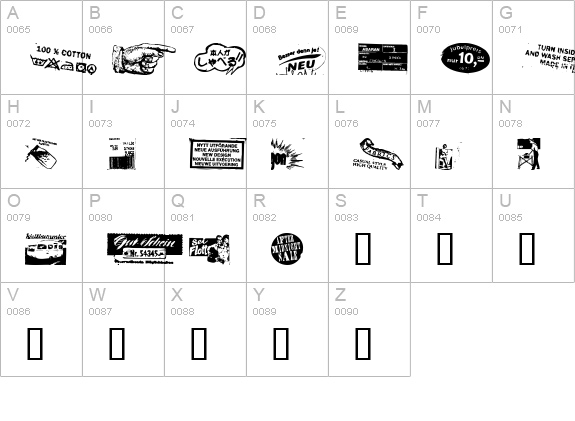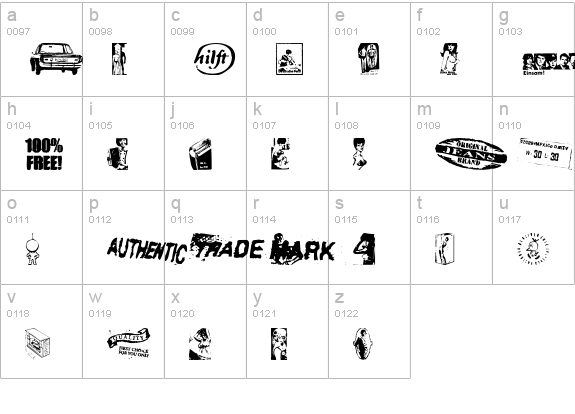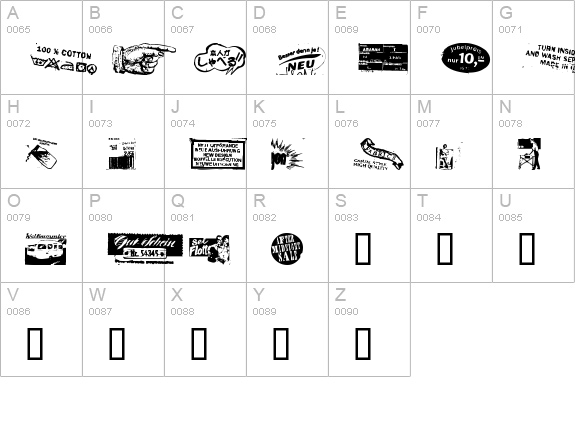
Introducing AfterMidnightSaleJunk font - a bold and edgy typeface that will add a unique touch to your design projects. This font exudes a sense of urban flair and modernity, making it perfect for posters, logos, and other creative works. With its distinct style and eye-catching appeal, AfterMidnightSaleJunk font is sure to make your designs stand out from the crowd. The best part? AfterMidnightSaleJunk font is available for free download at FontsMarket.com. Simply visit the website to get your hands on this versatile and striking font. Whether you're a graphic designer, a student, or a hobbyist, this font is a must-have addition to your collection. Don't miss out on the opportunity to enhance your projects with the one-of-a-kind AfterMidnightSaleJunk font. Download it today and let your creativity shine!